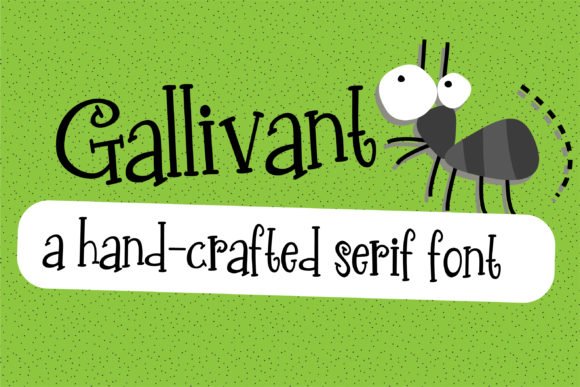
The Birth of a New Design Era: Gallivant Font
You know that feeling when you stumble upon a font that perfectly captures the essence of your latest creative project? It’s like the stars have aligned, and your design is suddenly infused with a sense of magic. That’s exactly what happened when we discovered the Gallivant Font – a charming, handwritten serif font that embodies the carefree spirit of youth.
Gallivant Font is more than just a pretty face; it’s a versatile tool designed to bring a touch of personality to your designs. Whether you’re crafting a brand identity, creating a social media campaign, or simply adding a personal touch to your website, this font is sure to make a lasting impression. As a valuable asset for designers, Gallivant Font offers a unique blend of playfulness and sophistication that’s hard to resist.
Gallivant Font Key Features
- Unique Characteristics: Gallivant Font features a distinctive, hand-drawn feel with subtle imperfections, adding a touch of elegance and sophistication to any design.
- Font Family: Gallivant Font is part of a larger font family, offering a range of weights and styles to suit different design needs.
Gallivant Font Review
As a designer, I was excited to dive into the Gallivant font, and overall, I have mixed feelings about it.
- Unique personality: The Gallivant font has a quirky, adventurous feel to it that’s perfect for capturing attention.
- High-quality rendering: The font is well-designed and renders beautifully on both digital and print materials.
- Good legibility: Despite its playfulness, the font is still easy to read, making it suitable for body text.
- Limited versatility: The Gallivant font is best suited for informal, creative projects and might not be the best choice for formal or corporate materials.
- No language support: I found that the font doesn’t support a wide range of languages, which might limit its use in multilingual projects.
While the Gallivant font has its strengths, its limitations hold it back from being a truly versatile font. It’s perfect for designers looking to add a touch of whimsy to their projects, but it’s not a go-to font for everyday use.
The Gallivant Font is ideal for:
- Creating elegant and sophisticated designs.
- Adding a touch of luxury to your branding materials.
- Highlighting key text in presentations or documents.
For optimal results, use the Gallivant Font in conjunction with high-quality images and a clean design aesthetic.